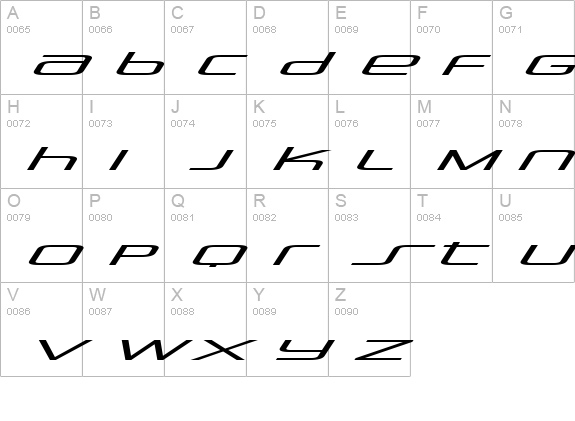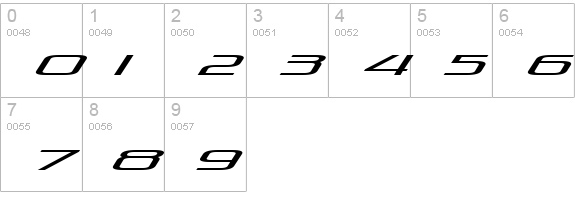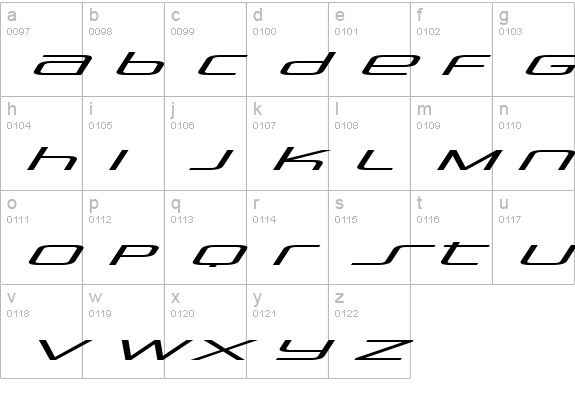
Introducing Stasmic, a captivating and versatile font that is sure to inject a sense of creativity and sophistication into your design projects. With its unique and meticulously crafted letterforms, Stasmic effortlessly blends modern elegance with a touch of vintage charm. This font offers a wide range of stylistic options, allowing you to customize your designs to perfection. Whether you're working on a logo, branding materials, posters, or invitations, Stasmic provides endless possibilities to elevate your work to new heights. One of the most remarkable aspects of Stasmic is that it is not only visually stunning but also free. Yes, you heard it right – this extraordinary font is freely available to download at FontsMarket.com. Now, you can add this gem to your font library without breaking the bank. Stasmic's versatility is truly unmatched, making it suitable for a variety of design projects. Its clean lines and balanced proportions ensure legibility at any size, while its subtle curves and intricate details add a touch of personality and character. The attention to detail in Stasmic is truly awe-inspiring. Each letter is meticulously designed, resulting in a harmonious balance between elegance and readability. Whether you're going for a minimalist look or a more decorative approach, Stasmic has got you covered. Furthermore, Stasmic supports a wide range of languages, making it a global font that can be used across different cultures and regions. So, no matter where your audience is located, Stasmic will communicate your message effectively and effortlessly. Don't miss out on the opportunity to enhance your designs with this extraordinary font. Visit FontsMarket.com today and discover the beauty and versatility of Stasmic. Download it for free and infuse your projects with a touch of timeless elegance. Stasmic is here to revolutionize your design journey.